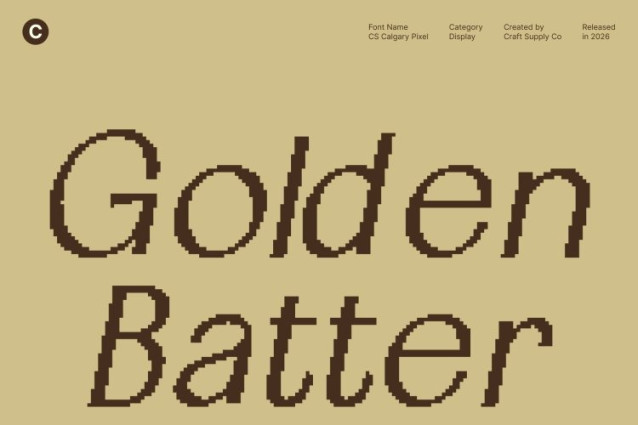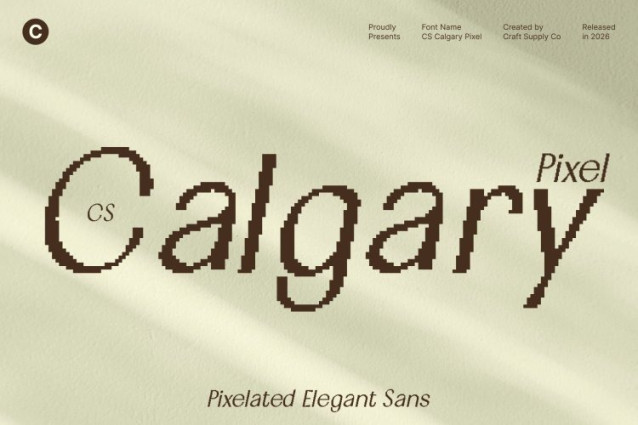
CS Calgary Pixel Font
CS Calgary Pixel Font This is a clean, modern sans serif font designed to fuse minimalist elegance with a sharp, digital-ready presence. Its crisp, pixel-aligned letterforms convey sophistication and precision, making every layout feel polished, contemporary, and confidently luxurious.
Sleek Structure with Premium Appeal
Built for clarity and style, this font combines smooth geometric shapes with generous spacing, creating a minimalist look that breathes. Each character is subtly refined for balance and harmony, delivering elegance without excess. Its pixel-perfect construction ensures a clean, professional aesthetic ideal for high-end digital or print applications.
Clarity and Versatility Across Digital Platforms
Whether for websites, branding, or modern interfaces, this font maintains readability and authority at any size. Its sleek sans serif foundation communicates professionalism and trust, making it perfect for corporate identities, premium product labels, and contemporary visual campaigns.
Perfect for Modern Luxury Branding
From minimalist logos and editorial layouts to sophisticated packaging and high-end digital design, this font elevates every project. This font combines luxury, precision, and clean digital styling, giving your brand a distinct, modern edge that is both timeless and visually striking.